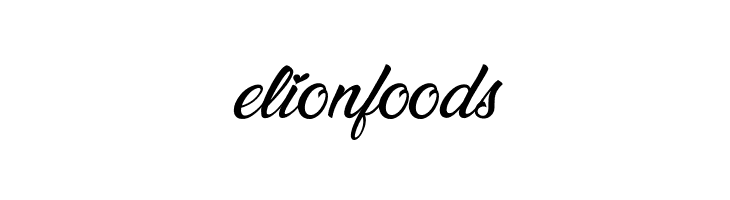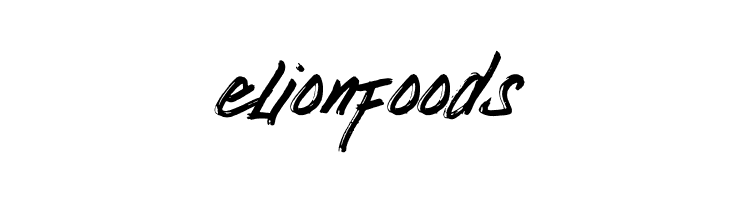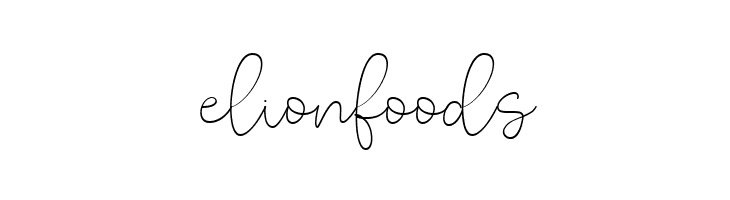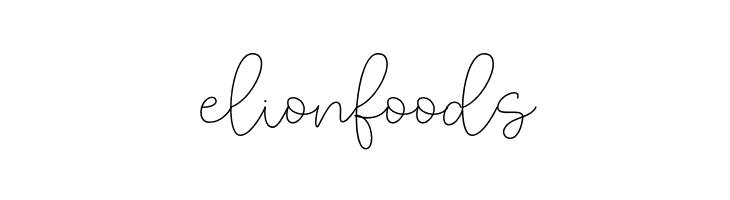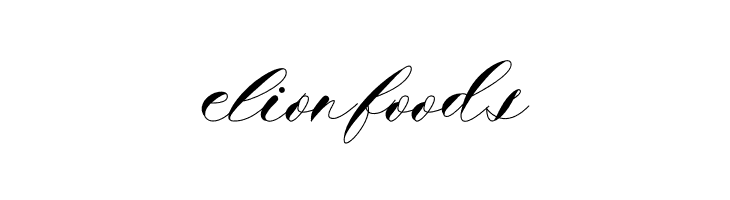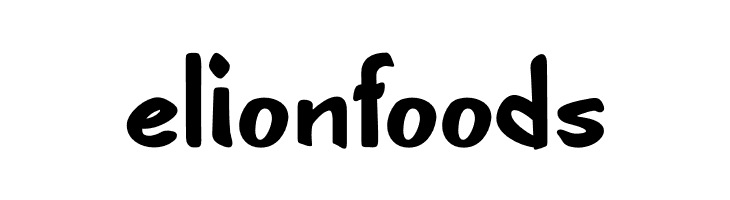
A playful, bold font with rounded edges and a hand-drawn appearance.
A bold, brush-style font with dynamic, hand-drawn strokes.
An elegant, italic script font with decorative swirls and heart motifs.
A playful, handwritten font with bold, rounded strokes and a casual, informal style.
A playful, casual handwritten font with an informal and whimsical style.
An elegant, flowing script font with interconnected, graceful strokes.
A graceful, slanted script font with smooth, flowing letterforms.
A delicate, cursive script font with flowing, interconnected strokes and elegant flourishes.
A slanted, elegant script font with flowing, interconnected letters.
An elegant script font with high contrast and ornate flourishes.